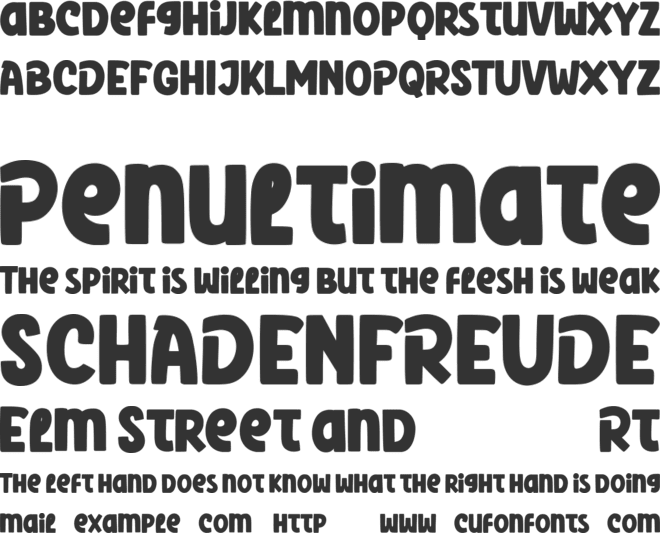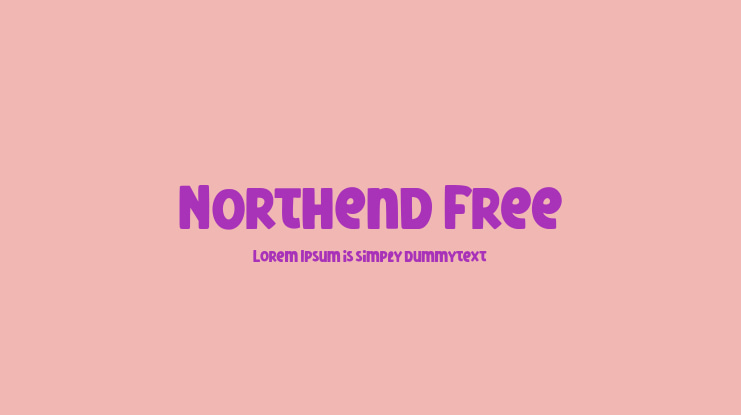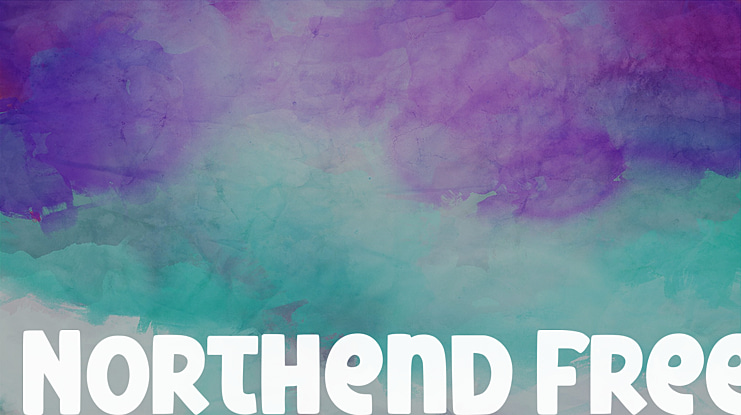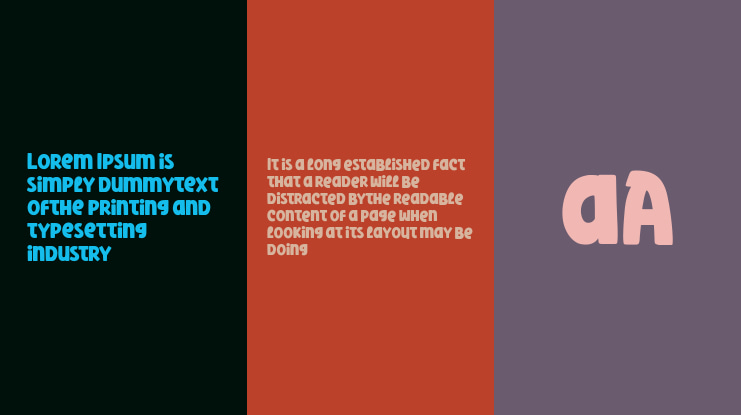
Northend Free Font
This is a handwritten display typeface specially made with love, resulting in a font that looks so cute and adorable. With bold stroke, fun character with a bit of ligatures. To give you an extra creative work. Northend font support multilingual more than 100+ language. This font is good for logo design, Social media, Movie Titles, Books Titles, a short text even a long text letter and good for your secondary text font with sans or serif. Make a stunning work with Northend font.